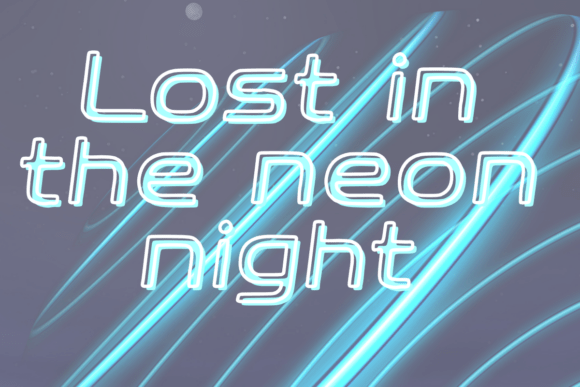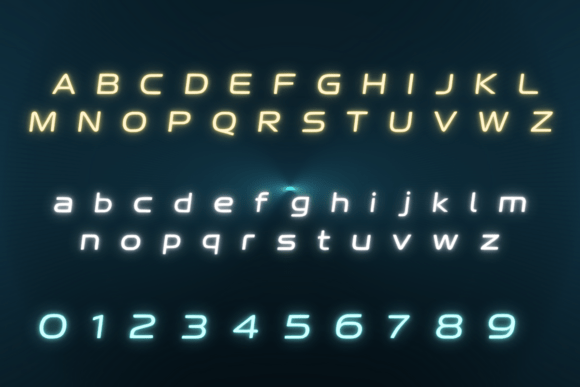
Introduction to Neonfade Font
You’ve spent hours perfecting your latest creative project, pouring your heart and soul into every detail. Finally, it’s time to add the finishing touches – a title that grabs attention and sets the tone for your entire visual identity. This is where the right font can make all the difference.
Enter Neonfade Font, a game-changing display font that’s been making waves in the design community. Its bold, futuristic aesthetic and glowing edges are sure to elevate your creative projects to the next level. Whether you’re working on a digital poster, YouTube thumbnail, or synthwave visual, Neonfade Font is the perfect addition to your design toolkit.
Key Features of Neonfade Font
• Unique, hand-drawn design ideal for creative projects and modern designs.
• High-quality font with a transparent background, allowing for versatile use.
• Includes a comprehensive character set, including uppercase and lowercase letters, numbers, and special characters.
• Designed to be scalable, with a resolution of 300 DPI, ensuring crisp and clear text at various sizes.
• Perfect for use in digital designs, such as logos, typography, and graphics, due to its modern and eye-catching aesthetic.
Honest Review: Neonfade Font
I recently came across the Neonfade Font, and I must say it’s a great addition to any designer’s toolbox. The font is a perfect blend of modern and retro styles, making it an ideal choice for creative projects that require a unique aesthetic.
• ✨ High-quality design: The font is well-crafted and has a clean, professional look.
• ✨ Transparent background: This feature allows for easy customization and flexibility in design projects.
• ⚠️ Limited font weights: The font only comes in a few weights, which may limit its versatility in certain design projects.
• ⚠️ Not suitable for all fonts: The Neonfade Font may not be the best choice for designs that require a more minimalist or simple aesthetic.
Overall, I’m impressed with the Neonfade Font. It’s a great design resource that can add a unique touch to creative projects. While it may have some limitations, its high-quality design and transparent background make it a valuable addition to any designer’s toolkit.
Tips for Getting the Most Out of Neonfade Font
Use the Neonfade Font on a transparent background to create a high-quality, eye-catching design. Experiment with different font sizes and colors to achieve the desired effect.
Neonfade Font is suitable for creative projects, such as graphic design, digital art, and typography-based designs. It’s also a great resource for designers looking for a unique and stylish font to add to their design portfolio.
Alternatives to Neonfade Font
1. Glitch
Glitch is a versatile font perfect for creative projects that require a modern, edgy look. It’s ideal for use in digital designs, such as website headers, social media graphics, and promotional materials. Glitch offers a high-quality, transparent background that blends seamlessly with any design element. It’s a great alternative to Neonfade Font for designers seeking a more aggressive, distorted aesthetic.
2. Nova Square
Nova Square is a clean, modern sans-serif font that works well for a variety of design applications, including business cards, brochures, and website content. This font is ideal for designers who want a high-quality, free download that’s easy to read and versatile. Nova Square is a good choice for designers who prefer a more straightforward, elegant look compared to Neonfade Font’s more playful, neon-inspired aesthetic.